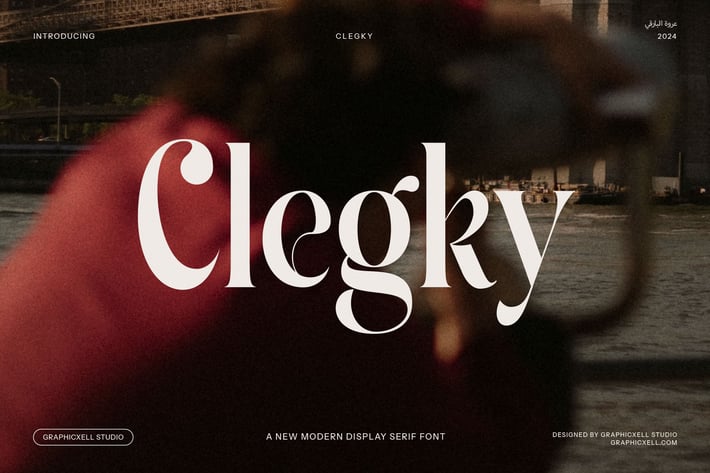
Clegky - Elegant Display Serif Font
Clegky Elegant Display Serif Font – A Perfect Blend of Modern Sophistication and Vintage Elegance
Introducing Clegky Elegant Display Serif Font, a refined and stylish typeface that brings together modern design sensibilities and vintage charm. With its distinctive serifs, graceful curves, and sophisticated proportions, Clegky is the ideal choice for any project that demands a touch of class, while still maintaining a contemporary edge.
Whether you're creating a luxury brand, designing a memorable logo, or developing premium product packaging, Clegky offers the perfect balance of elegance and readability. Its timeless, yet modern, aesthetic makes it an exceptional font for branding, websites, magazines, and advertisements. The font's unique character makes it especially well-suited for boutiques, high-end food brands, and fashion labels, ensuring your design stands out with style and sophistication.
The beauty of Clegky lies in its versatility. It works seamlessly across both digital and print mediums, making it the perfect font for magazine layouts, advertisements, and web typography. Whether you're looking to evoke a vintage aesthetic or a contemporary feel, Clegky adapts effortlessly to your design needs, making it a top choice for a wide range of creative projects.
Perfect for luxury branding, boutiques, food and beverage products, and more, Clegky Elegant Display Serif Font brings a unique sense of timeless elegance to your design. Enhance your next project with a font that exudes both beauty and strength, and leave a lasting impression on your audience.
Introducing Clegky Elegant Display Serif Font, a refined and stylish typeface that brings together modern design sensibilities and vintage charm. With its distinctive serifs, graceful curves, and sophisticated proportions, Clegky is the ideal choice for any project that demands a touch of class, while still maintaining a contemporary edge.
Whether you're creating a luxury brand, designing a memorable logo, or developing premium product packaging, Clegky offers the perfect balance of elegance and readability. Its timeless, yet modern, aesthetic makes it an exceptional font for branding, websites, magazines, and advertisements. The font's unique character makes it especially well-suited for boutiques, high-end food brands, and fashion labels, ensuring your design stands out with style and sophistication.
The beauty of Clegky lies in its versatility. It works seamlessly across both digital and print mediums, making it the perfect font for magazine layouts, advertisements, and web typography. Whether you're looking to evoke a vintage aesthetic or a contemporary feel, Clegky adapts effortlessly to your design needs, making it a top choice for a wide range of creative projects.
Perfect for luxury branding, boutiques, food and beverage products, and more, Clegky Elegant Display Serif Font brings a unique sense of timeless elegance to your design. Enhance your next project with a font that exudes both beauty and strength, and leave a lasting impression on your audience.